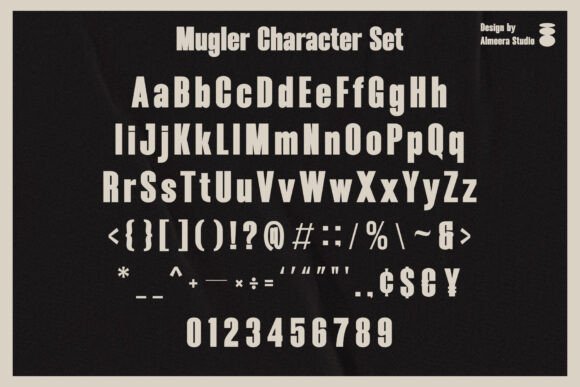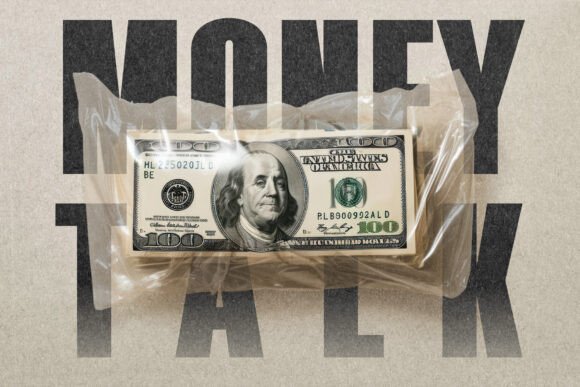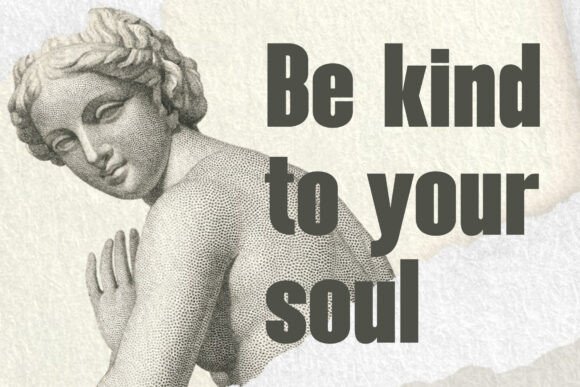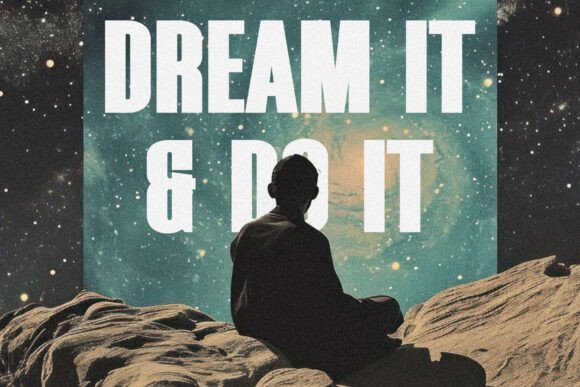
Introduction to Mugler Font
Have you ever been working on a creative project, pouring your heart and soul into it, only to realize that the perfect font is missing? It’s that moment of frustration, but also of excitement, when you stumble upon the perfect design resource. For designers, finding the right font can make all the difference between a good design and a great one. This is exactly what happened when we discovered the Mugler Font – a modern sans serif font that’s perfect for a variety of creative projects.
Mugler Font is more than just a font; it’s a high-quality design tool that can elevate your branding projects, logos, social media posts, and advertisements to the next level. Its clean and simple design makes it suitable for any project, from product packaging to wedding designs. With its transparent background, you can easily use it as a watermark or add it to your product designs. The best part? You can download it for free, making it an invaluable resource for any designer.
- Font family: Mugler, with various styles and weights (Thin, Light, Regular, Medium, Bold, Black)
- Unique characteristics: Elegant, modern design with a touch of sophistication, suitable for luxury brands and high-end creative projects
Honest Review: Mugler Font
I recently had the chance to work with the Mugler Font, and I must say it’s a high-quality addition to any designer’s toolkit. This free download is a game-changer for any creative project that requires a unique touch.
Here are a few things that work well: ✨
- Transparency: The transparent background of this font makes it incredibly versatile and easy to work with.
- Customization: Mugler Font can be easily customized to fit your specific design needs.
- Professional look: The font’s unique style and high quality make it perfect for any professional project.
However, there are a few limitations to keep in mind: ⚠️
Overall, I’m impressed with the Mugler Font. It’s a solid design resource that can elevate any project to the next level. With a little bit of creativity, the possibilities are endless. I would definitely recommend this font to fellow designers looking for a high-quality, unique addition to their toolkit.
Mugler Font
The Mugler Font is a high-quality design resource perfect for any creative project. Its unique and stylish design makes it an excellent choice for various applications, from logos to graphics and text.
For the most out of the Mugler Font, use it with a transparent background to make it stand out. Experiment with different font sizes and colors to create a visually appealing design.
The Mugler Font is ideal for:
- Text-based designs
Alternatives to Mugler Font
The Great Vibes Font is a high-quality, elegant script font that’s perfect for creative projects requiring a touch of sophistication. Its transparent background makes it ideal for overlaying on images or backgrounds. Great Vibes is a free download and a great alternative to Mugler Font for designers looking for a more subtle, refined look.
Compared to Mugler Font, Great Vibes has a more delicate and cursive feel, making it suitable for projects that need a softer, more elegant touch. When to use: wedding invitations, fashion designs, and luxury branding.
Pacifico is a beautiful, modern script font that’s perfect for designers looking for a high-quality, elegant font without the need for a transparent background. It’s a free download and a great alternative to Mugler Font for designers who want a more straightforward, yet stylish look.
Compared to Mugler Font, Pacifico has a more laid-back, casual feel, making it suitable for projects that need a relaxed, yet sophisticated tone. When to use: beach-inspired designs, travel brochures, and outdoor apparel branding.